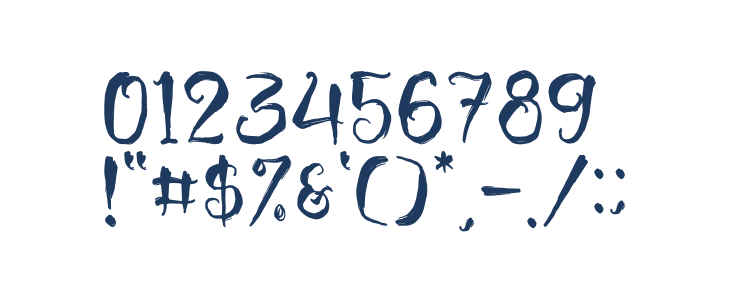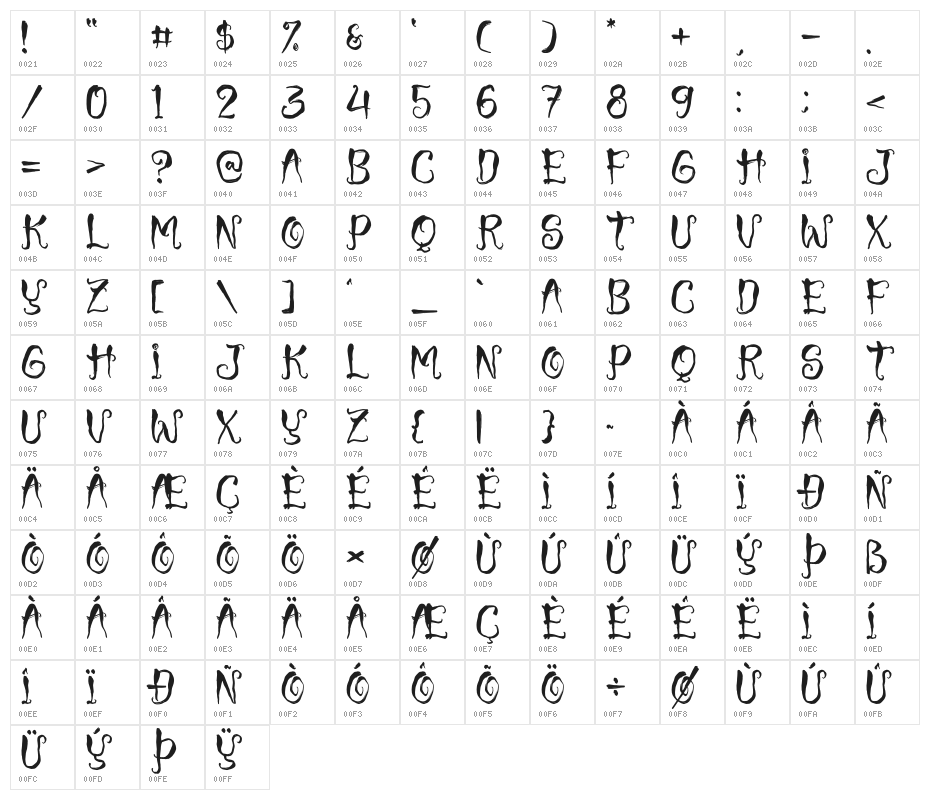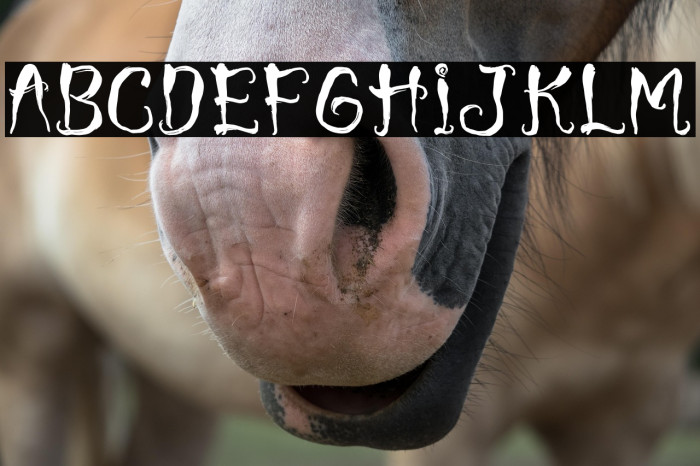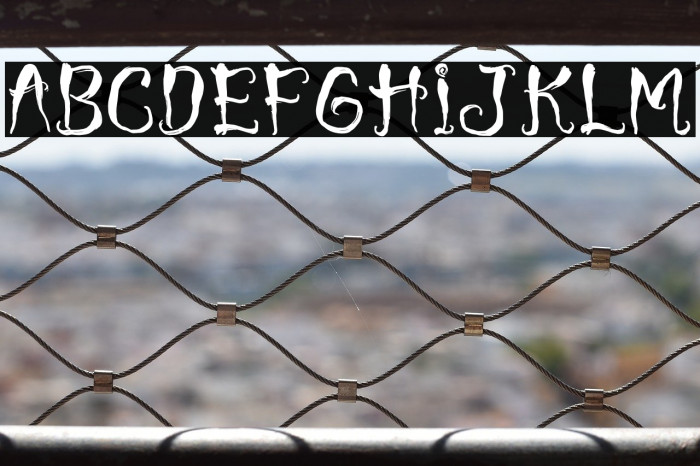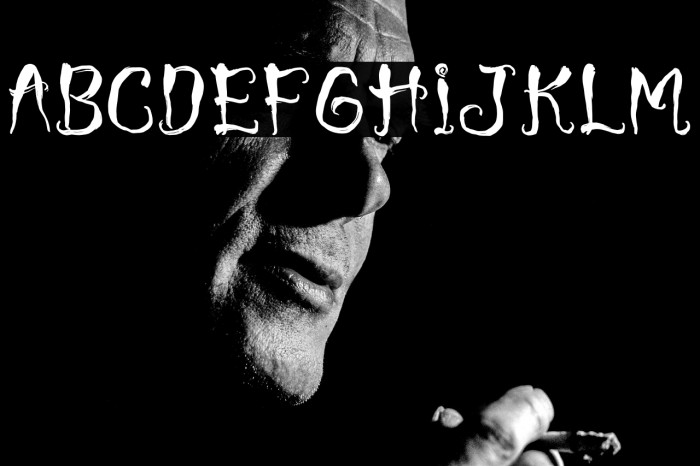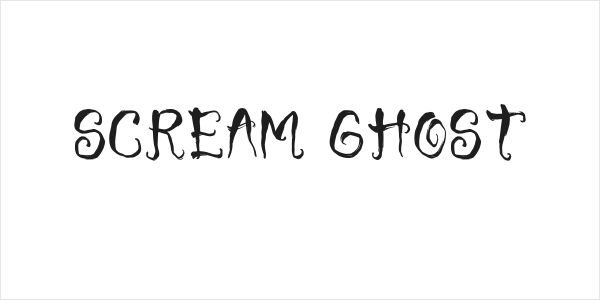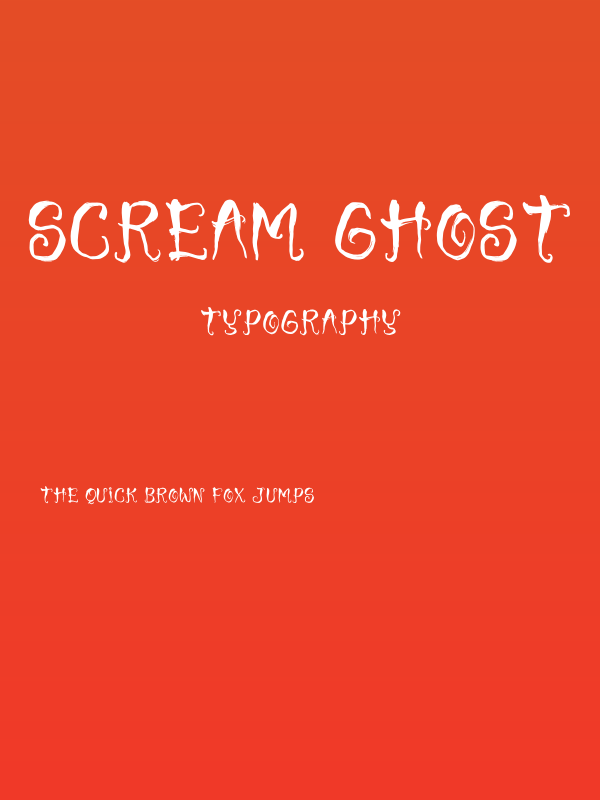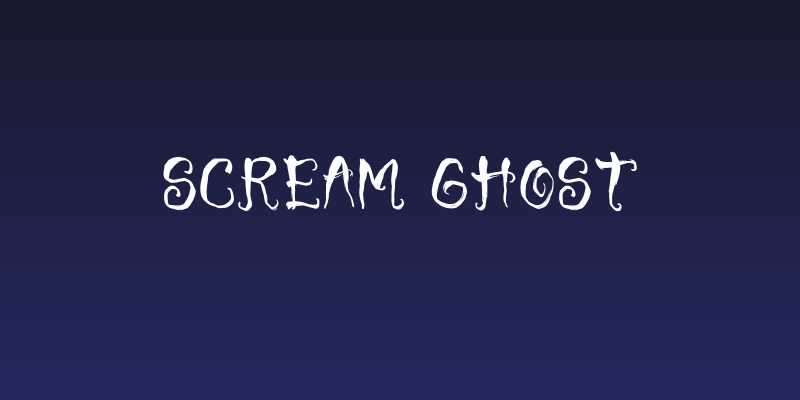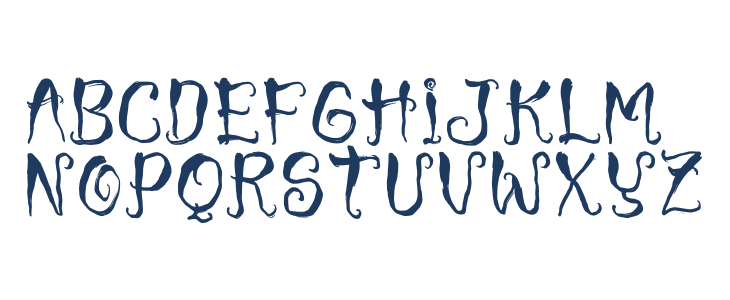
Scream Ghost Font
Scream Ghost Description
This font features a spooky, ghostly aesthetic with fluid, irregular strokes that give it a haunting appearance. The characters are designed with a playful yet eerie style, incorporating elements that resemble dripping ink or ectoplasm. The uppercase and lowercase letters maintain a consistent theme, with exaggerated curves and sharp points that enhance the spectral vibe. Numbers and special characters follow the same design principles, making the font cohesive and suitable for thematic projects. The overall look is both whimsical and unsettling, perfect for capturing attention in a Halloween or horror-themed context.